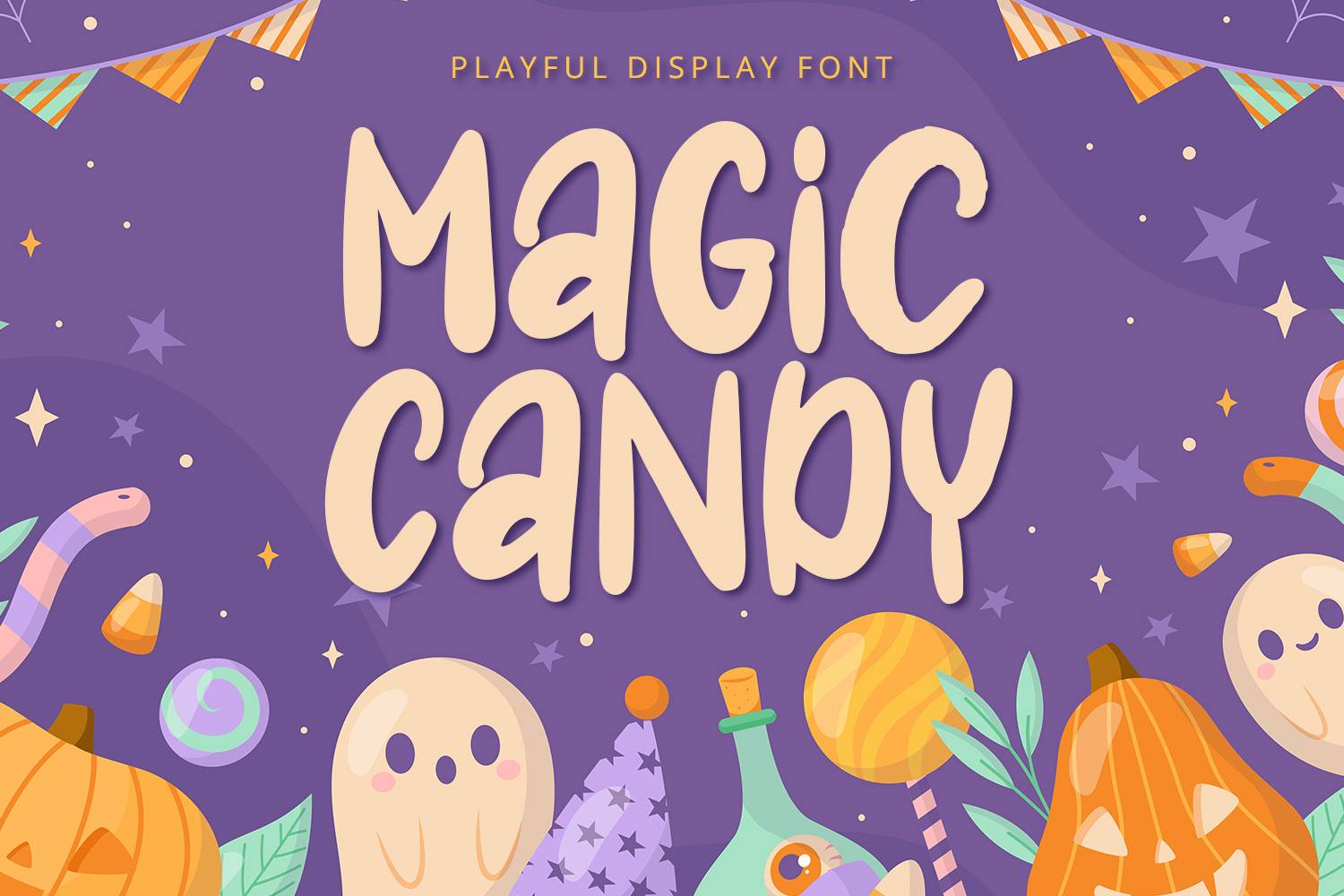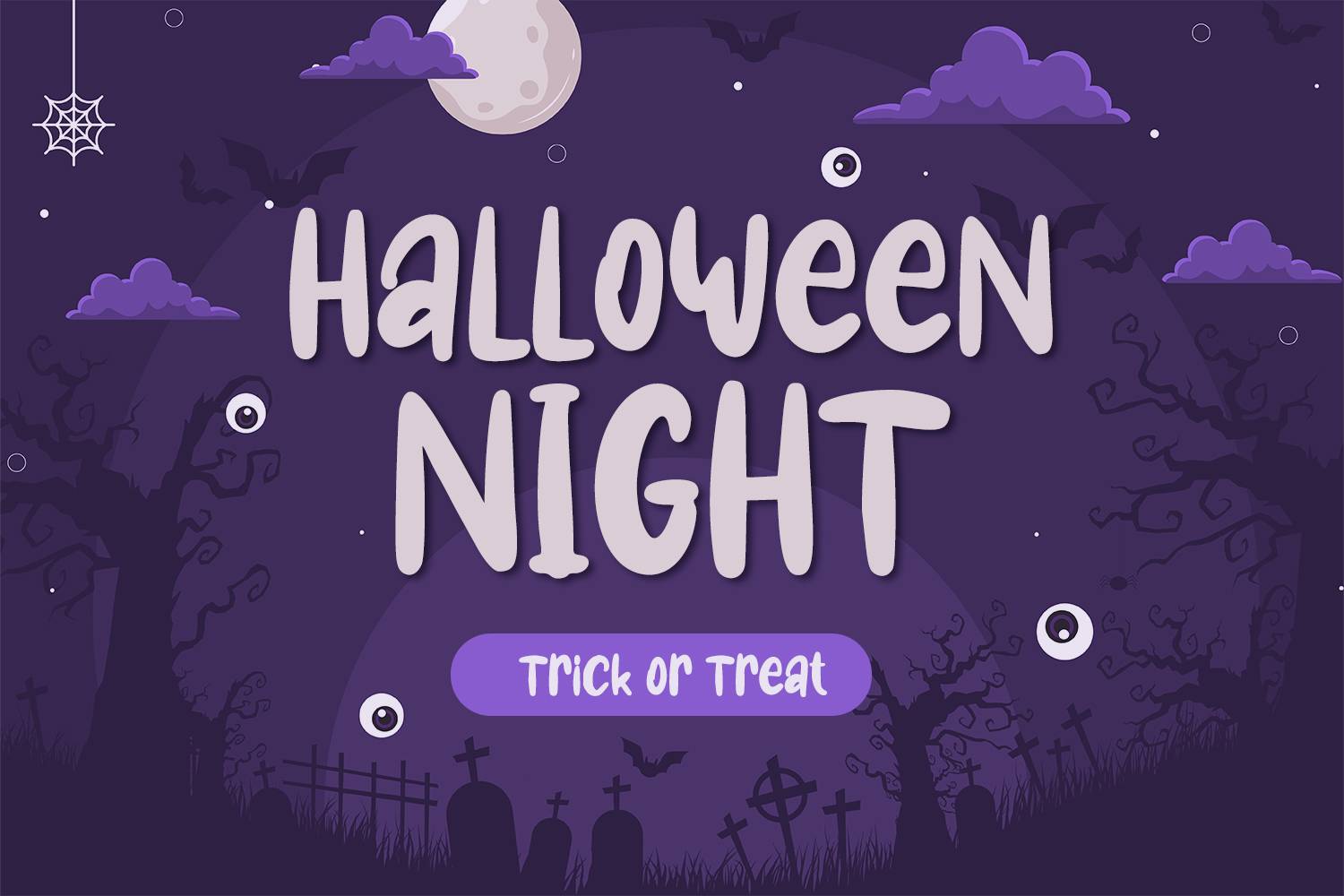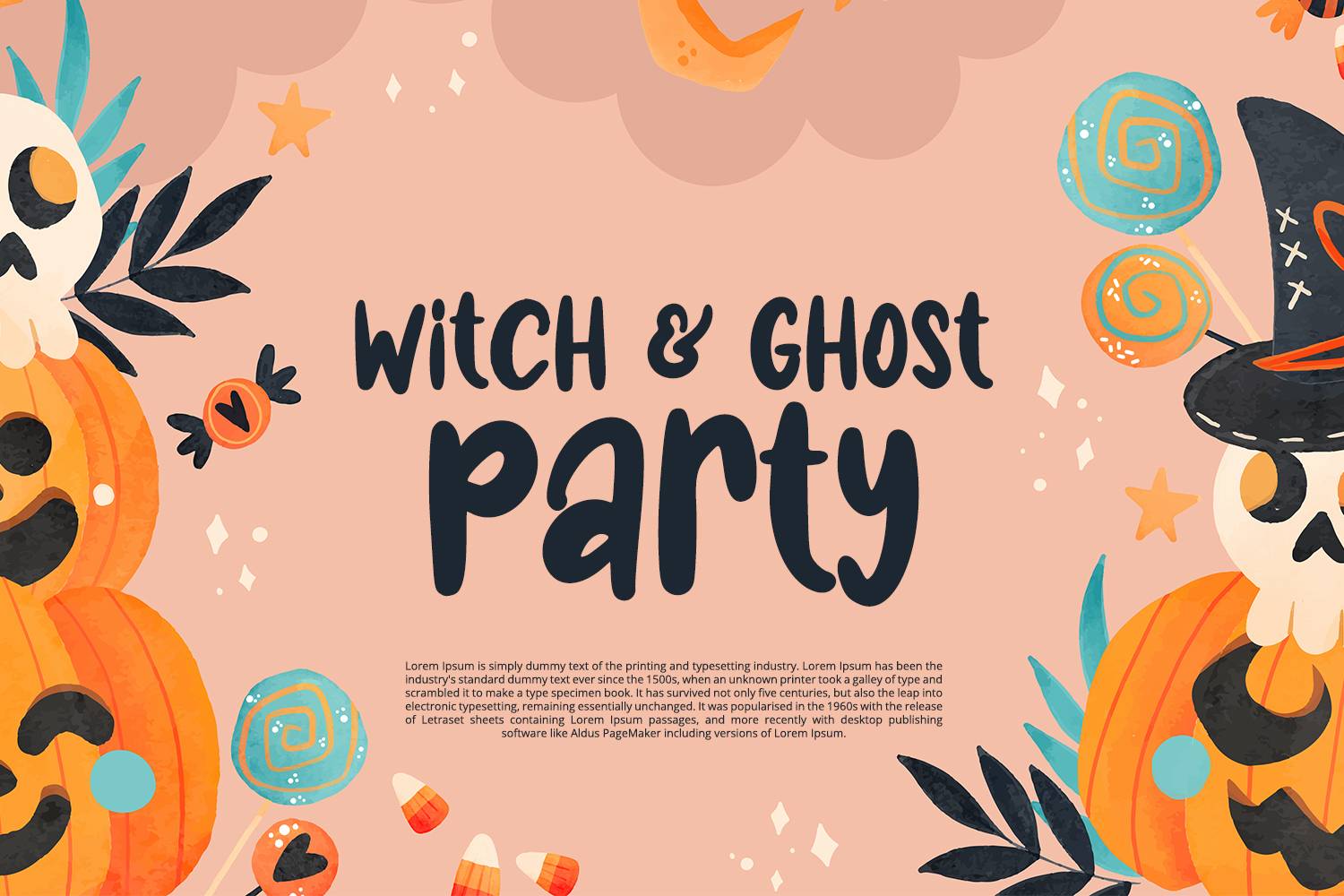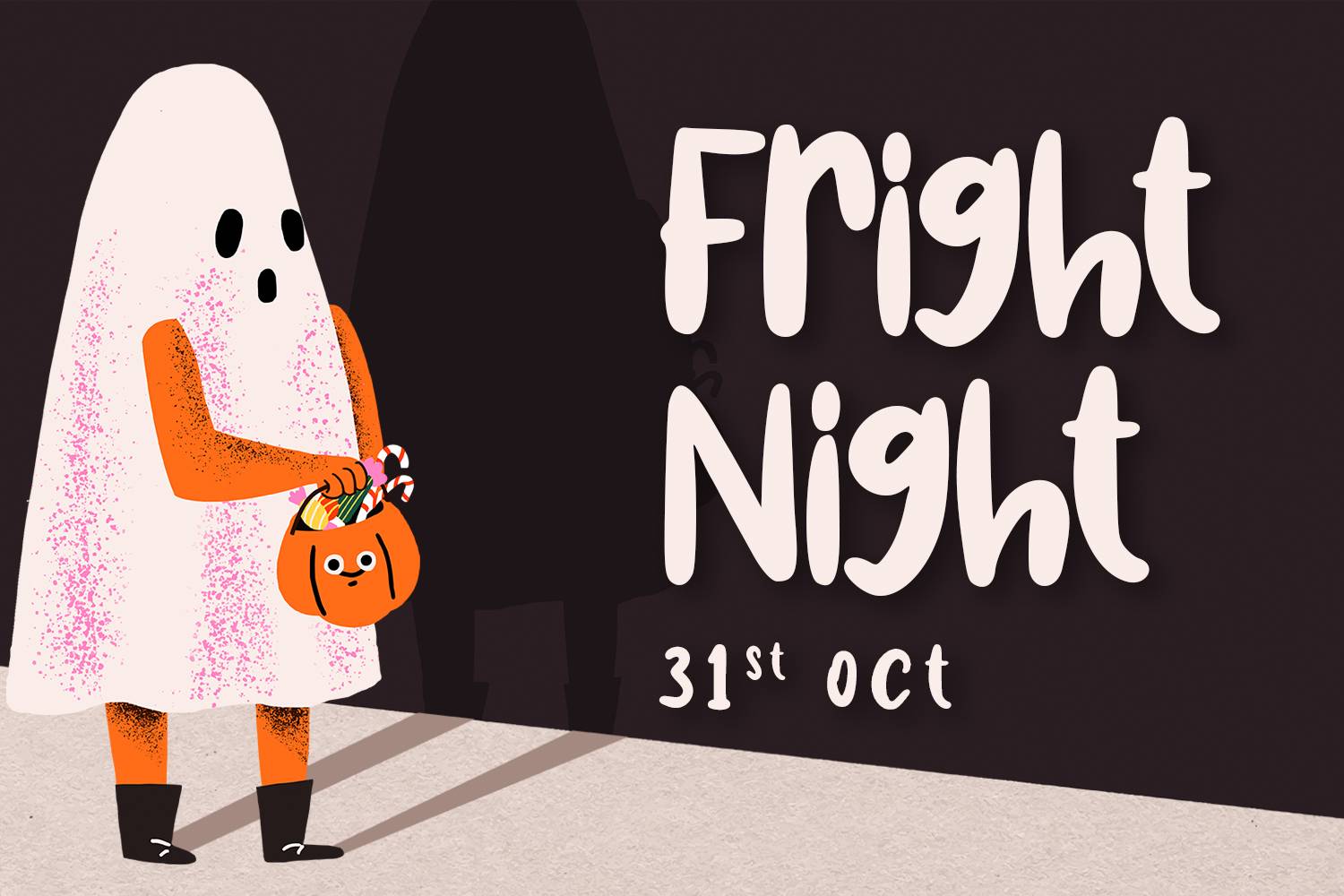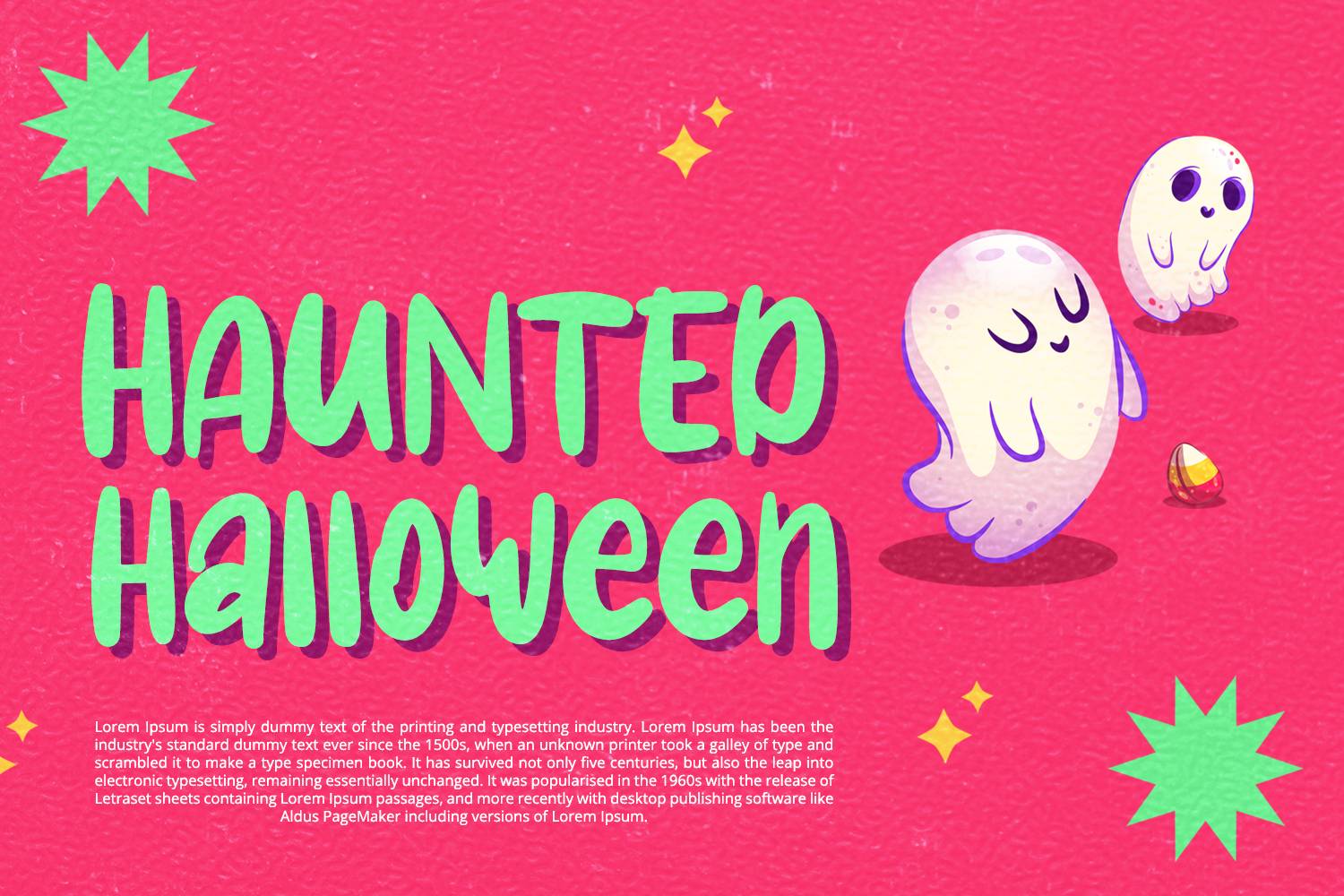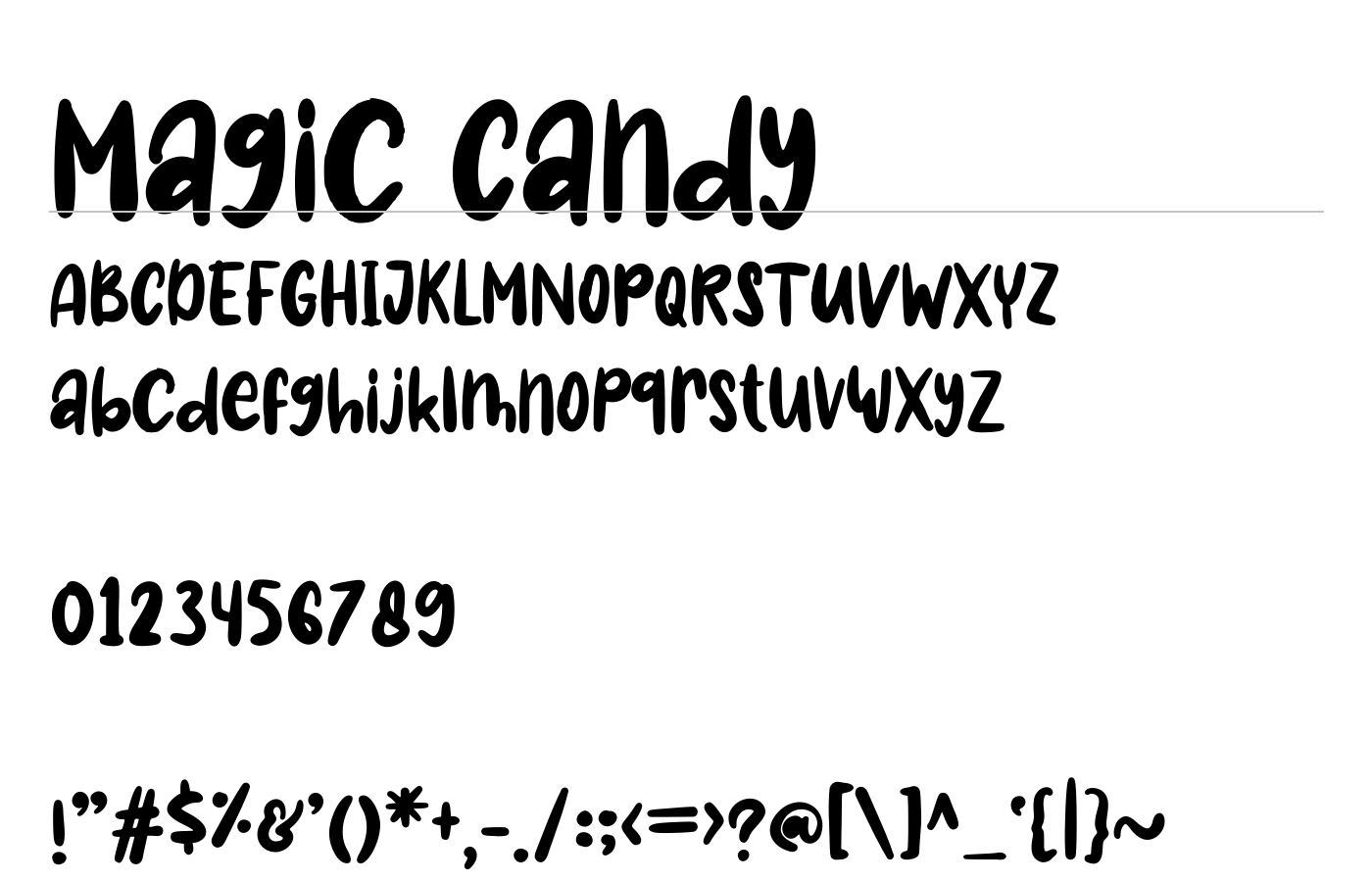
Magic Candy is a playful, hand-drawn sans serif font with a bold, chunky weight and a lively, uneven stroke that gives it a fun, casual feel. Its whimsical letterforms and friendly curves make it perfect for children’s designs, party invitations, and creative branding that aims to convey joy and creativity. This font works well in headlines and logos where a cheerful and approachable vibe is desired.
Magic Candy Font